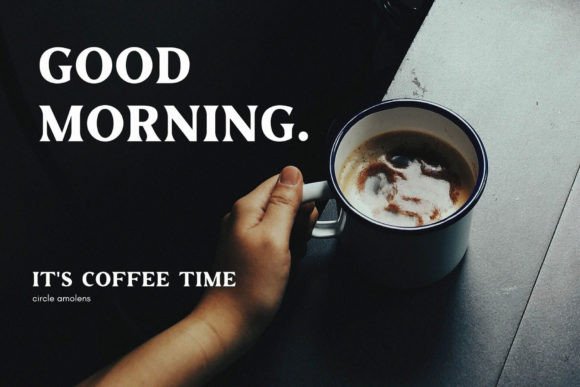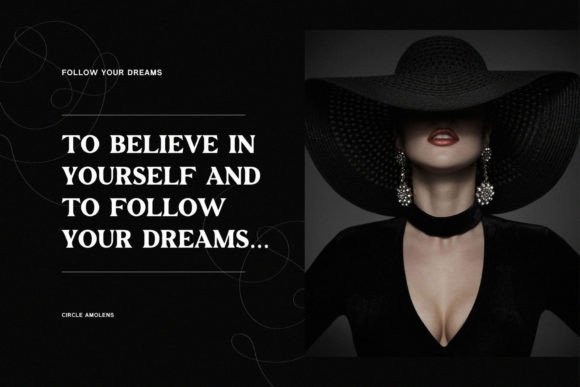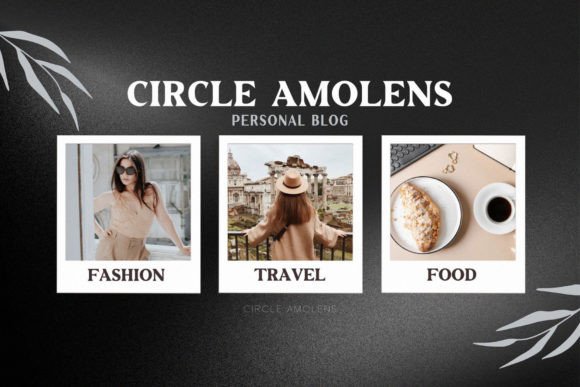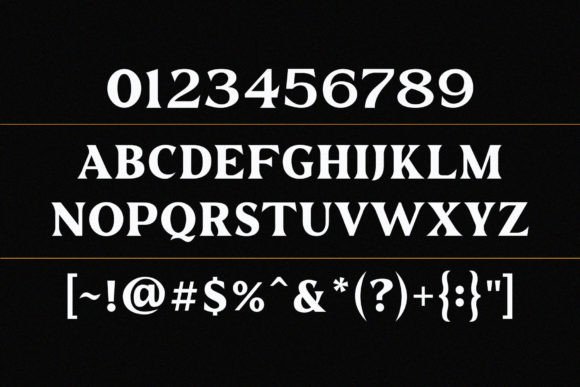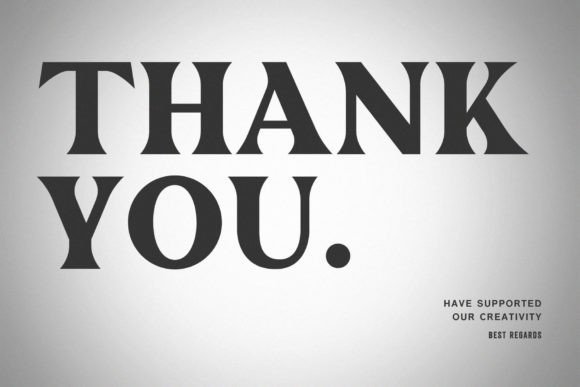
Introduction to Circle Amolens Font
As a designer, there’s nothing quite like the thrill of landing on the perfect font for a project. The moment you see it, you know – this is the one that will elevate your design from good to great. For me, that moment came when I stumbled upon the Circle Amolens Font. Its elegant serif design and neat lettering made me stop in my tracks. I knew right then and there that I had to share this gem with the design community.
Whether you’re a seasoned pro or just starting out, the Circle Amolens Font is a valuable addition to any designer’s toolkit. Not only is it a high-quality font, but it’s also available for free download, making it a fantastic resource for designers on a budget. With its transparent background and versatile design, it’s perfect for a wide range of creative projects, from logos and social media graphics to flyers and business cards.
Key Features of Circle Amolens Font
- High-quality design for creative projects, available for free download
- Unique, bold style with a transparent background, ideal for graphic design and digital art
- Perfect for logos, icons, and branding materials due to its circular design
- Great resource for designers, artists, and developers looking for a high-quality, free design element
Honest Review: Circle Amolens Font
As a designer, I’m always on the lookout for high-quality design resources that can elevate my creative projects. Recently, I came across the Circle Amolens Font, which I’m excited to share my honest review with you.
- ✨ Unique and creative design: The Circle Amolens Font has a distinctive, playful look that’s perfect for adding a touch of whimsy to your design projects.
- ✨ High-quality vector files: The font is available in high-quality vector files, making it easy to scale and manipulate without losing any resolution.
- ⚠️ Limited language support: Unfortunately, the Circle Amolens Font only supports a limited range of languages, which may be a drawback for designers working on international projects.
- ⚠️ No transparent background: The font does not have a transparent background, which may limit its use in certain design applications.
Overall, I’m impressed with the Circle Amolens Font’s unique design and high-quality vector files. While it may have some limitations, it’s a fantastic resource for designers looking for a creative and free design element. If you’re working on a project that requires a playful, whimsical touch, I’d definitely recommend giving the Circle Amolens Font a try.
Circle Amolens Font
The Circle Amolens Font is suitable for a wide range of creative projects, including logo designs, social media graphics, and marketing materials. Its high-quality design and transparent background make it easy to use and customize.
Getting the Most Out of Circle Amolens Font
To get the most out of this font, experiment with different text sizes, colors, and layering techniques. You can also pair the font with other design elements, such as images or shapes, to create a unique and visually appealing design.